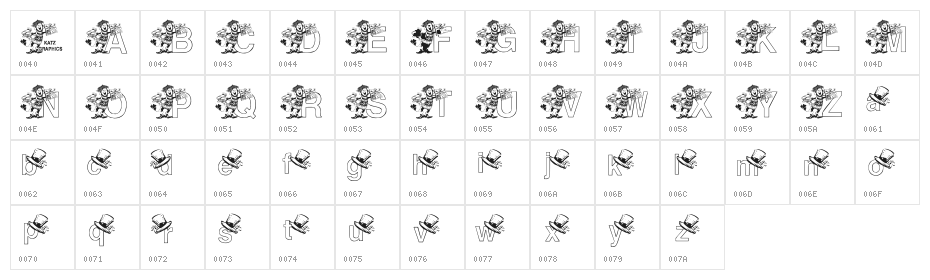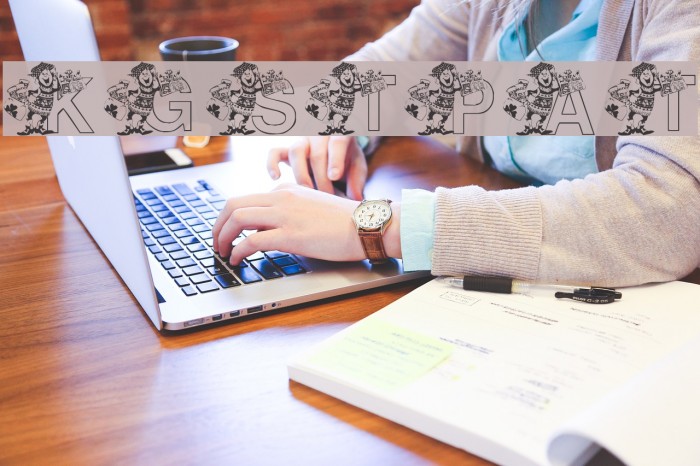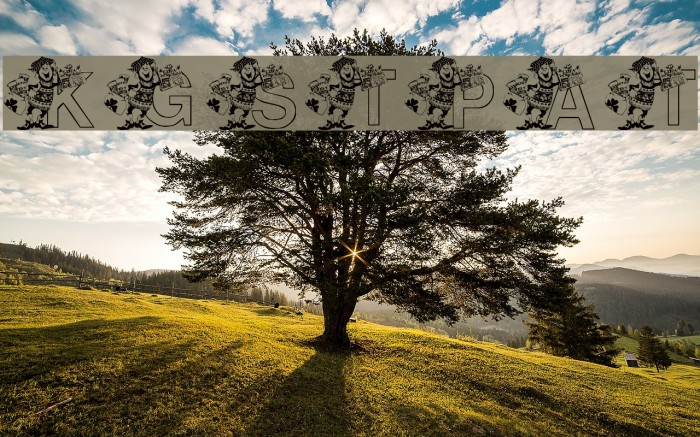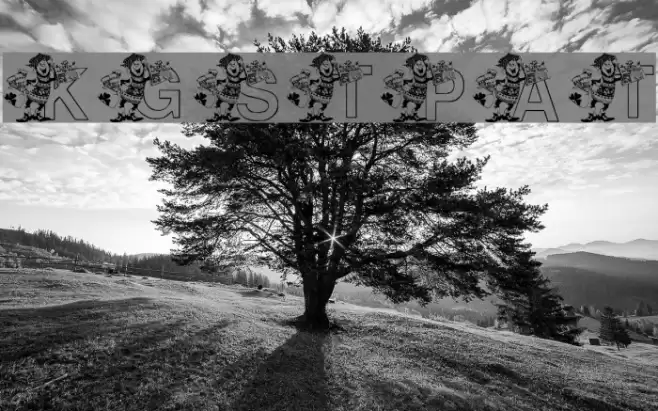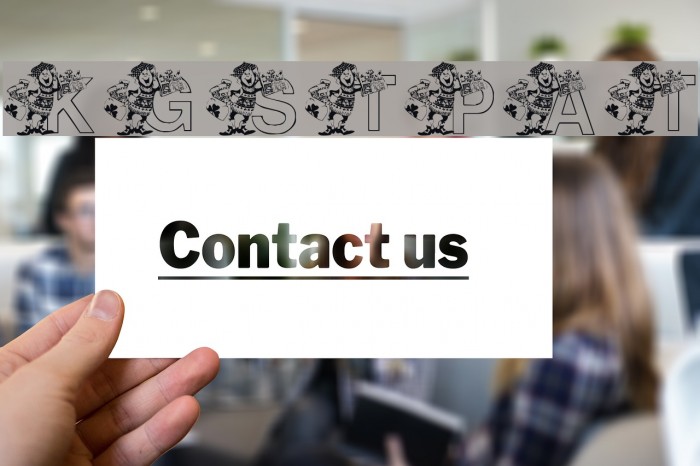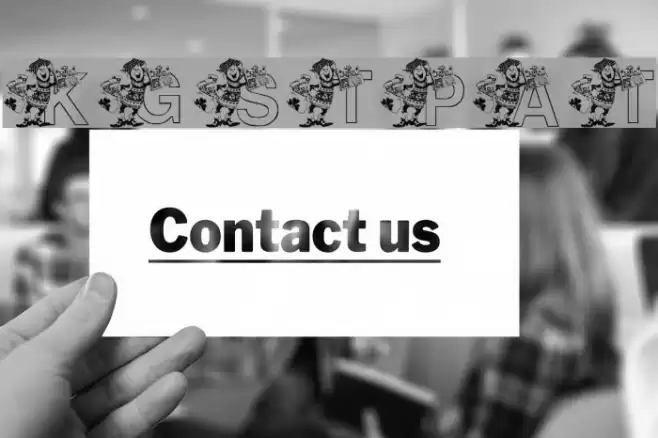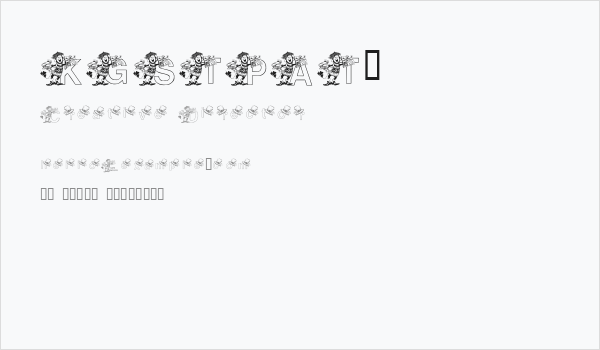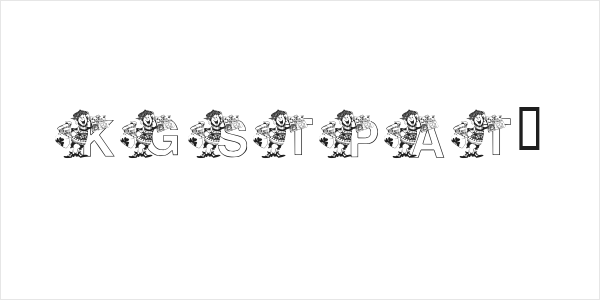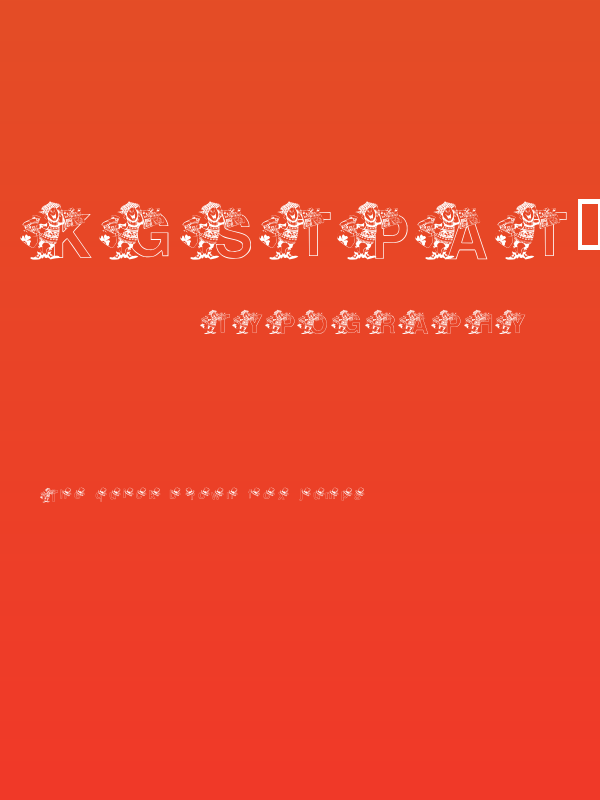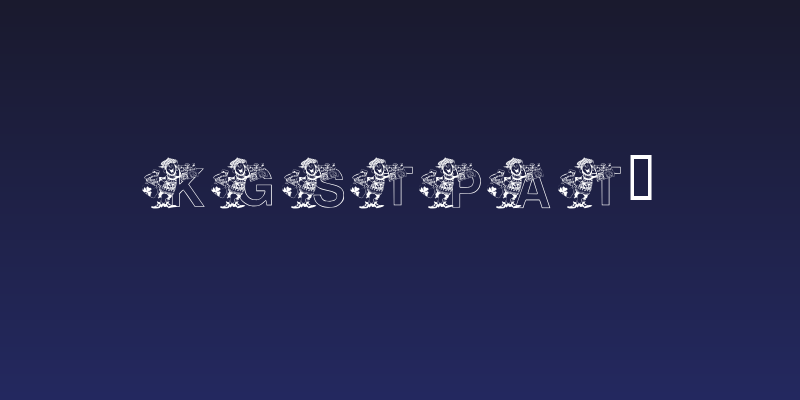
KGSTPAT2 Font
KGSTPAT2 Description
This whimsical and decorative font features a playful design where each letter is accompanied by a small, detailed illustration of a character wearing a top hat. The characters are integrated into the letters, creating a unique and eye-catching effect. The uppercase and lowercase letters maintain a consistent style, with the illustrations adding a touch of humor and charm. The font's overall appearance is both fun and artistic, making it suitable for creative projects that require a distinctive and engaging look.